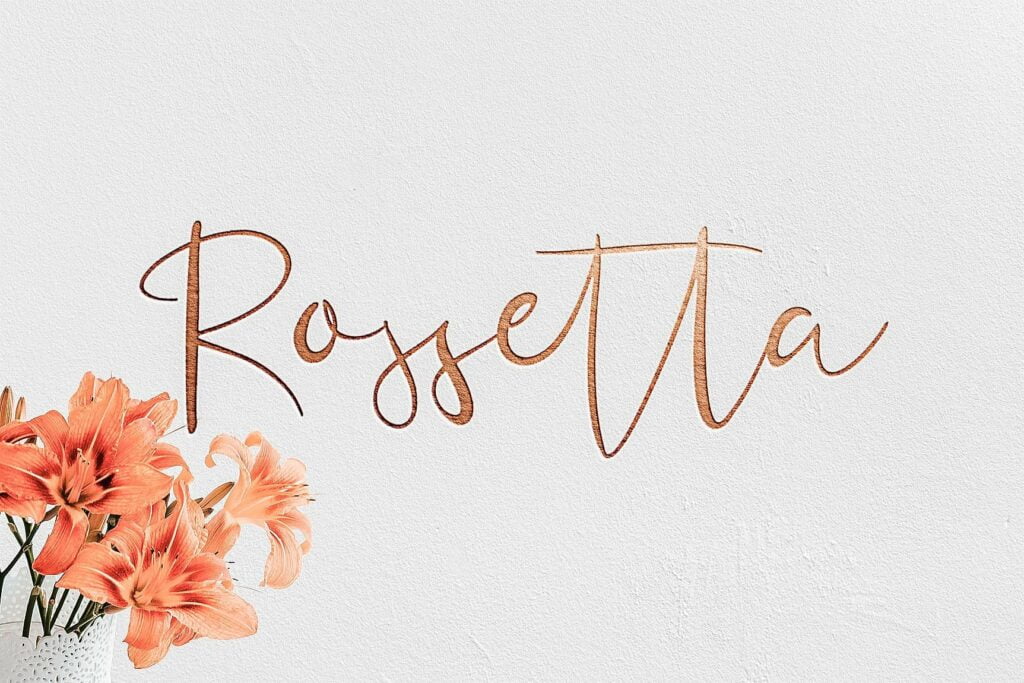
Rossetta Script Font
A modern handwriting typeface, This is modern feminine font, every single letters have been carefully crafted to make your text looks beautiful. With modern script style this font will perfect for many different project.
Introducing Rossetta Font. Rossetta It allows you to create stunning and easy hand-lettering in an instant. Ideal for the logo, quotes, wing, product label/packaging, fashion, letter, advertising, invitation, poster, merchandise, greeting cards, etc